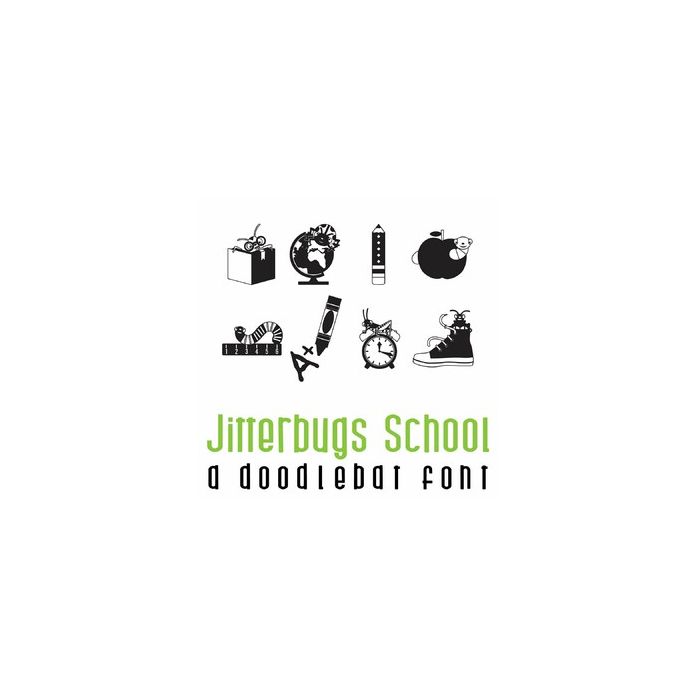
This adorable doodlebat font features 26 adorable insects and school themed imagery. Perfect for classrooms, students, crafts, gifts, cardmaking, scrapbook pages, graduation and more!